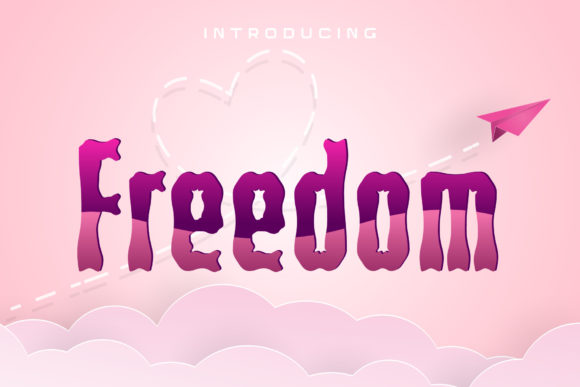
Say hello to Freedom Font, a captivating display font designed to set your creative projects ablaze! Experience the boundless freedom and allure it exudes, leaving a lasting impact on your designs.
With its versatility, Freedom Font seamlessly adapts to a myriad of projects, from heartfelt birthday cards to enchanting Halloween designs and joyful Christmas greetings. Its spirited charm extends to child-themed concepts, adding an irresistible touch of whimsy.
Unleash your imagination and adorn your DIY crafts with Freedom Font's unique flair. Whether it's personalizing mugs, creating eye-catching posters, or adding a touch of magic to invitations, this font will make your creations shine.
Step into a realm of endless possibilities, where your artistic vision takes center stage. Let Freedom Font elevate your designs, turning them into masterpieces that captivate and inspire. Dare to embrace its beauty and watch your creative endeavors soar to new heights!